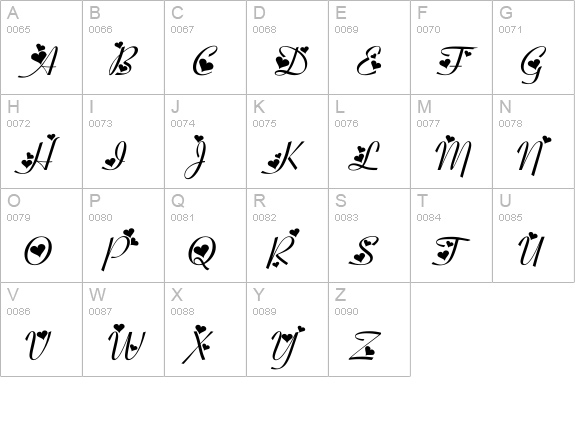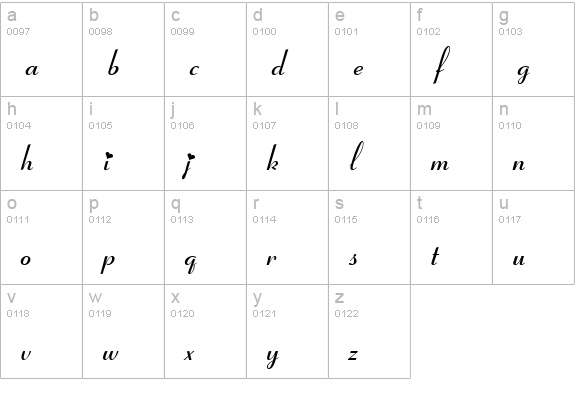
Fiolex Girls Font Details
Fiolex Girls font is a charming and whimsical typeface that exudes a sense of playfulness and femininity. With its delicate curves and graceful strokes, this font is perfect for adding a touch of sweetness to any design project. The Fiolex Girls font is free to download at FontsMarket.com, allowing you to easily incorporate its unique style into your creations without any cost. Whether you're designing invitations, greeting cards, or social media graphics, Fiolex Girls font will add a delightful and enchanting element to your work. Let your creativity shine with this lovely and freely available font!